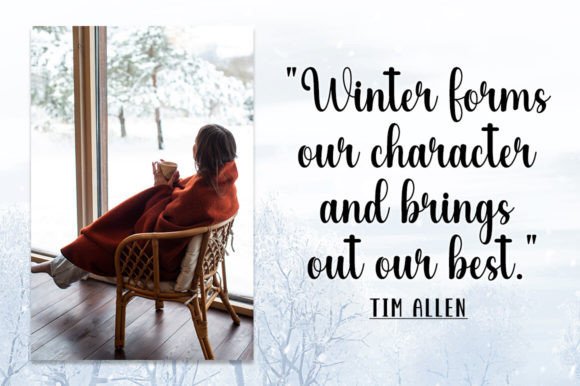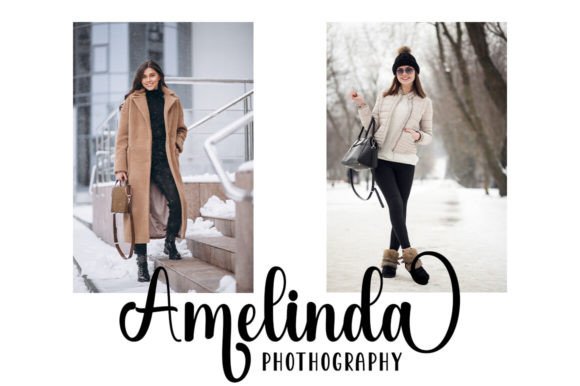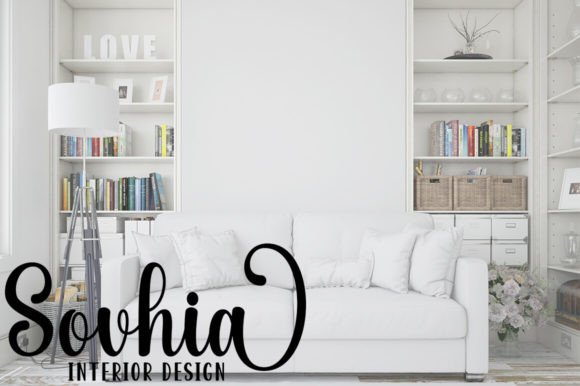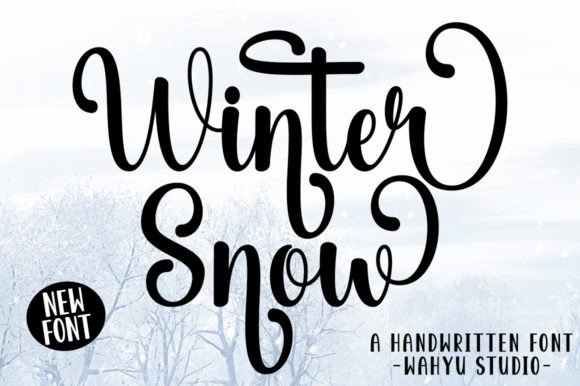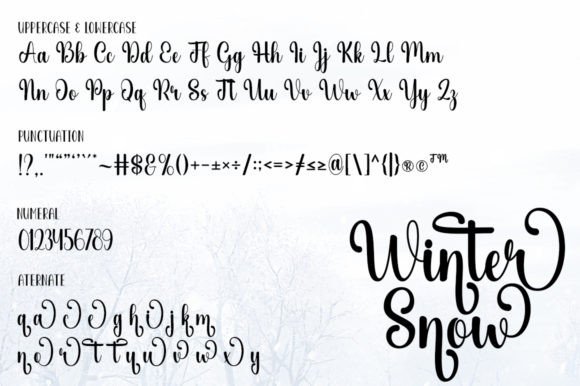
Winter Snow Font
Winter Snow is a lovely and sweet handwritten script font. This gentle font will look gorgeous on a variety of design ideas. It is the best choice for creating eye-catching logos, branding, and quotes.